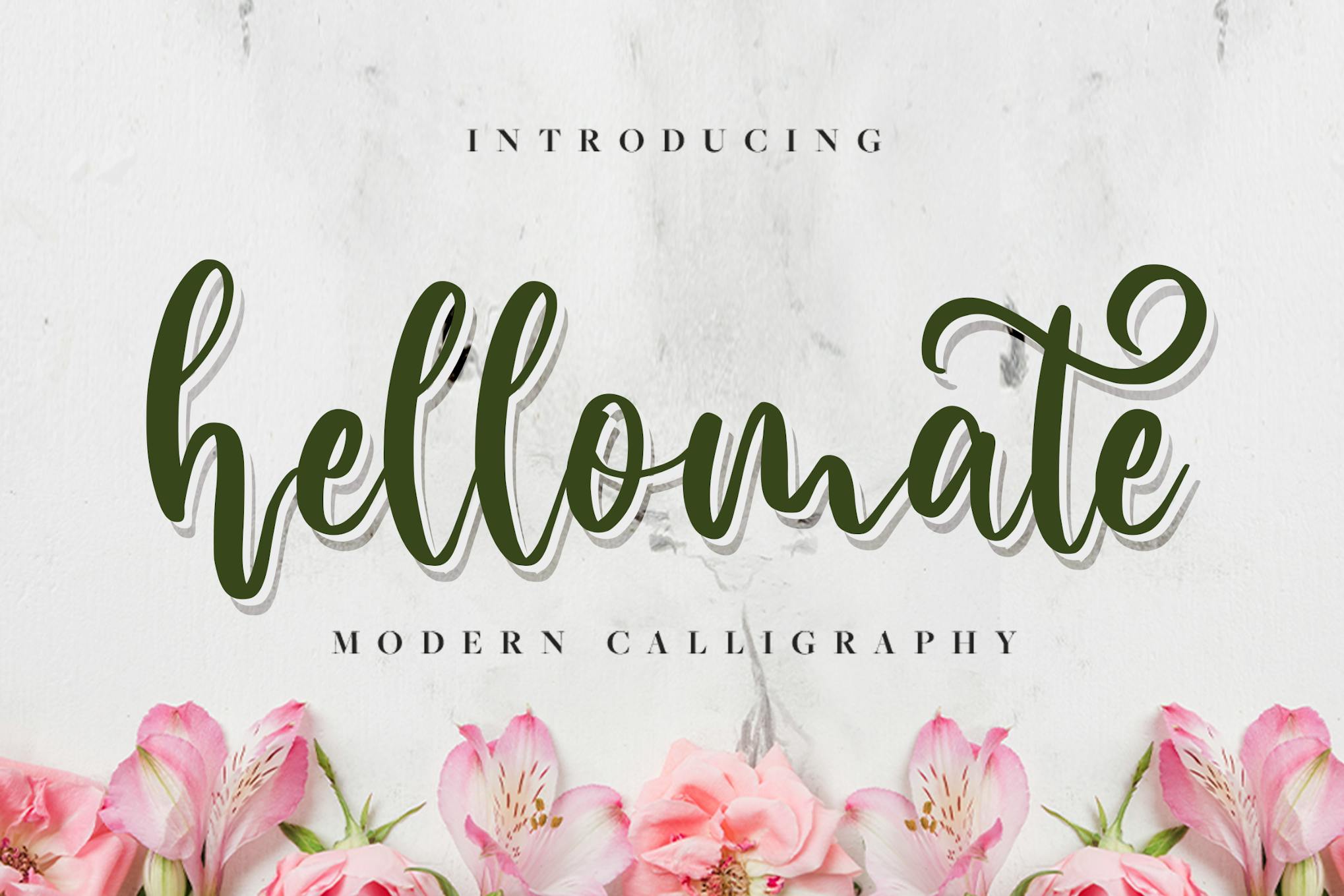
Hellomate - Wedding Font
The Hellomate - Wedding Font excels in friendly design applications including welcoming wedding invitations, friendly bridal branding, warm ceremony logos, welcoming product packaging, friendly business cards, warm portfolios, welcoming greeting cards, friendly social media graphics, warm event signage, and welcoming marketing materials. Its friendly script style makes it perfect for projects requiring warm elegance that communicates friendliness and establishes welcoming brand positioning with audiences seeking friendly wedding experiences and warm sophistication.
What makes the Hellomate - Wedding Font genuinely exciting is its exceptional ability to capture the friendly warmth and welcoming charm of companionable weddings through warmly crafted letterforms. The font features flowing, friendly strokes with welcoming flourishes and warm proportions that create a distinctly companionable appearance. Each character displays remarkable attention to friendly detail with welcoming curves, warm connections, and friendly spacing that give text a beautifully warm, hand-lettered quality. The font's friendly character and welcoming rhythm create an atmosphere of warm companionship while maintaining friendly sophistication and wedding authenticity.
The Hellomate - Wedding Font family typically includes regular weight with extensive character coverage, featuring uppercase and lowercase letters, numerals, punctuation marks, and international characters. The typeface often incorporates stylistic alternates, contextual ligatures, and welcoming swashes that enhance its signature friendliness. These additional elements provide designers with creative flexibility to customize text appearance and achieve more natural-looking friendly handwriting that reflects the font's warm and welcoming character.
This friendly signature font distinguishes itself through its remarkable balance of welcoming charm and sophisticated elegance. Unlike cold or distant fonts that lack friendly appeal, Hellomate - Wedding Font embraces the power of warm design to create friendly connections with welcoming wedding audiences. The font's friendly character makes it essential for welcoming wedding planners, warm brands, and friendly celebration businesses where creating warm wedding experiences and friendly memories is fundamental to success in companionable wedding markets.